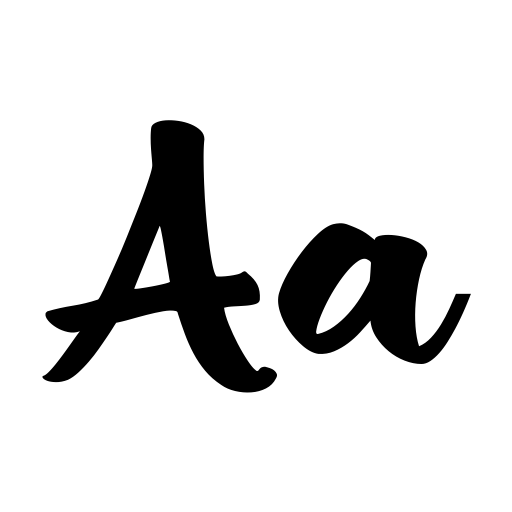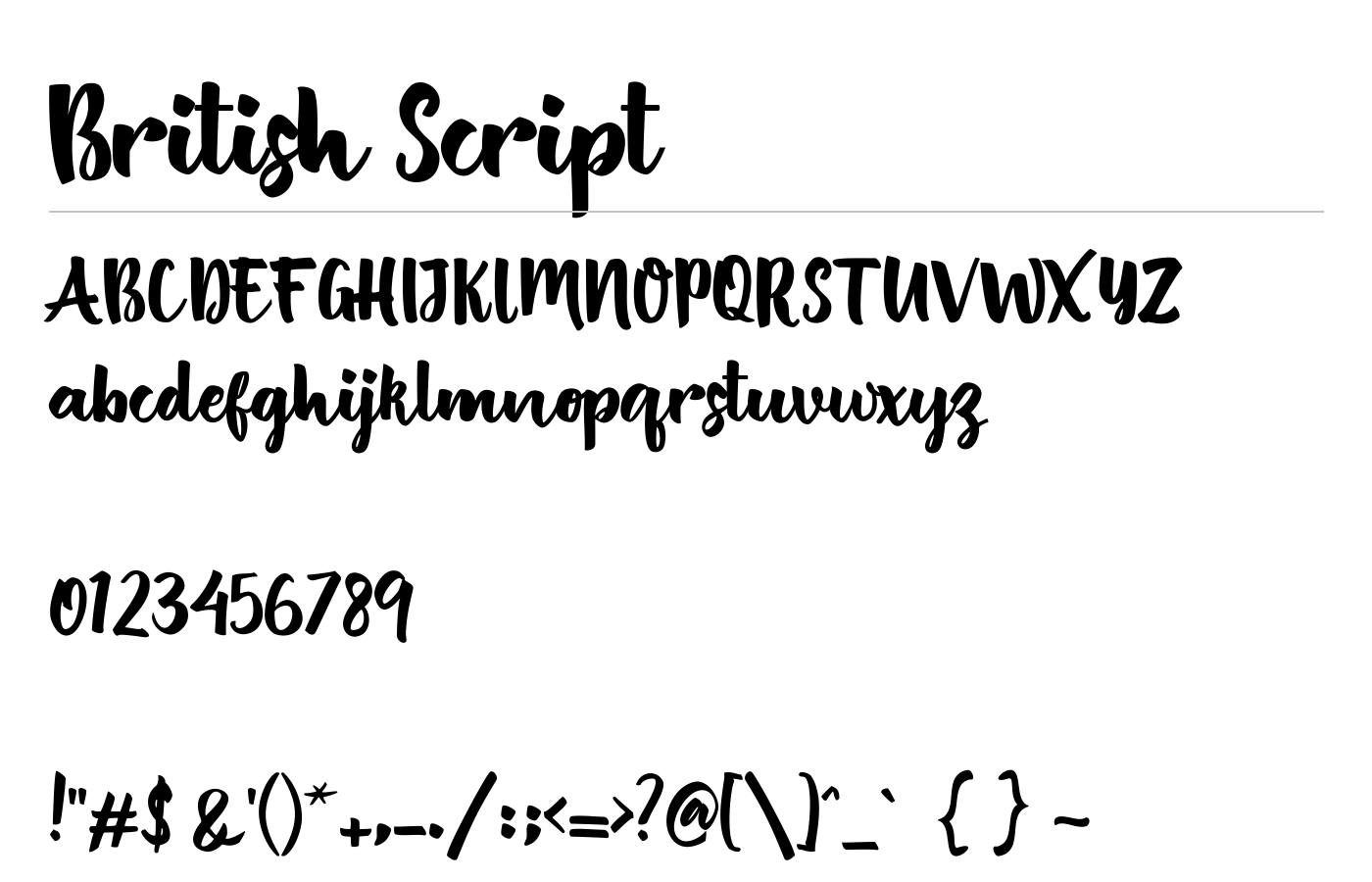
British Script is a lively and bold handwritten script font with a playful yet confident character. Its smooth, brush-like strokes and moderate contrast create a charming, casual feel that works beautifully for branding, invitations, and headlines where a friendly, approachable personality is desired. This font adds a warm, personal touch to designs without sacrificing readability, making it ideal for creative projects that seek a modern, informal elegance.
British Script Font
About British Script Font
| Font family | British Script Font |
| Designer | Zulkhairilettering |